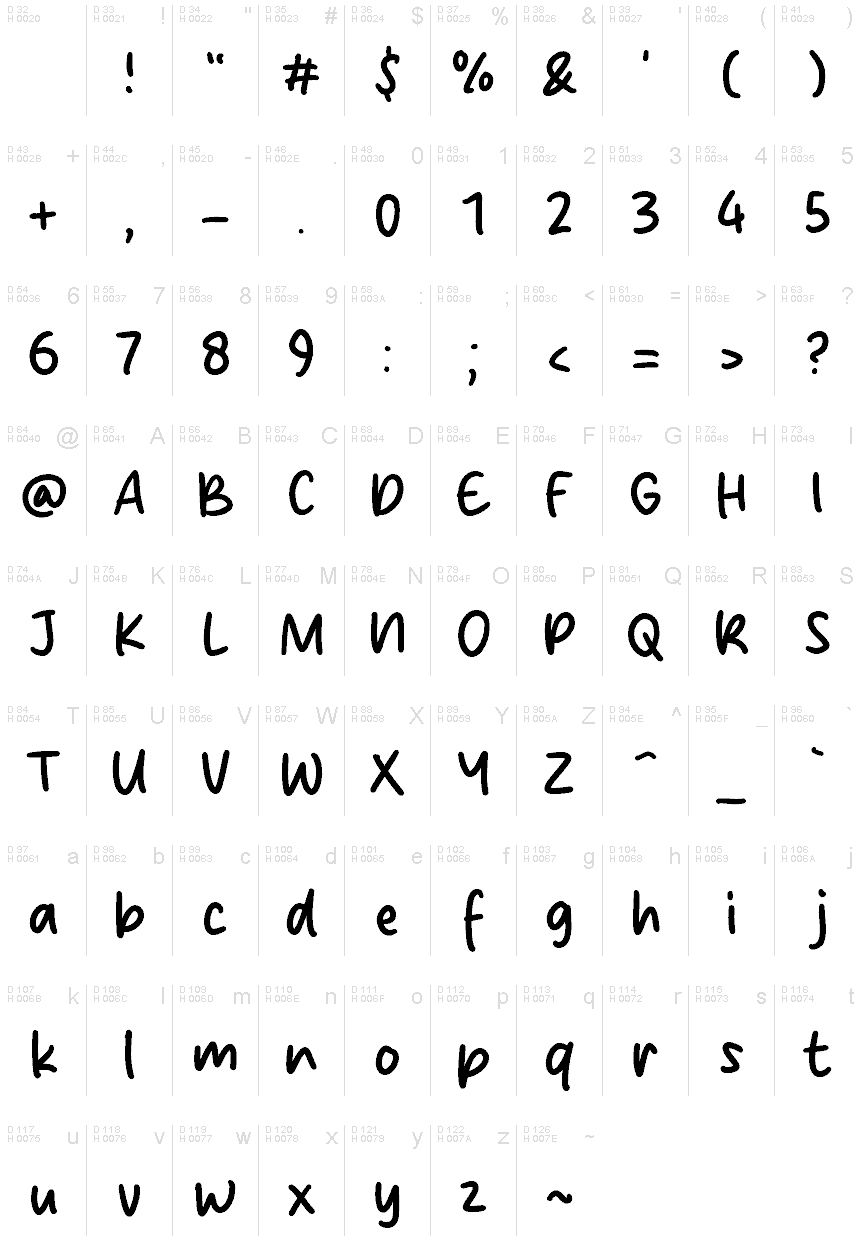
Awesome Friday
It doesn’t matter how busy you are! You can never have too many fonts! And since we believe that too, we bring you Awesome Friday, a free script font by MJType. The Awesome Friday script font is inspired by children’s art and features exaggerated shapes, rough edges, and uneven baselines. Its fluid curves, bold lines, and relaxed appearance will perfectly convey your message of carefree joy and youthful enthusiasm.
The font can be used for a variety of creative projects such as branding and packaging, book titles and subtitles, children’s toys and games, cards, posters, and many other interesting applications.